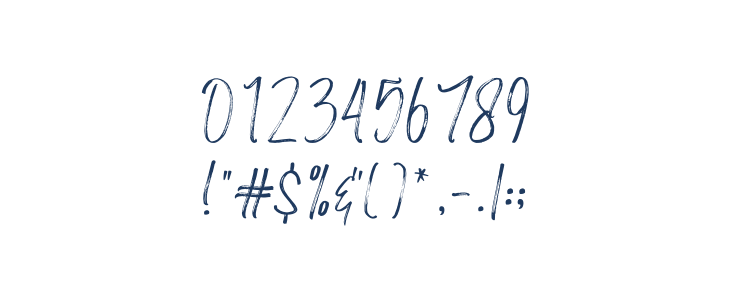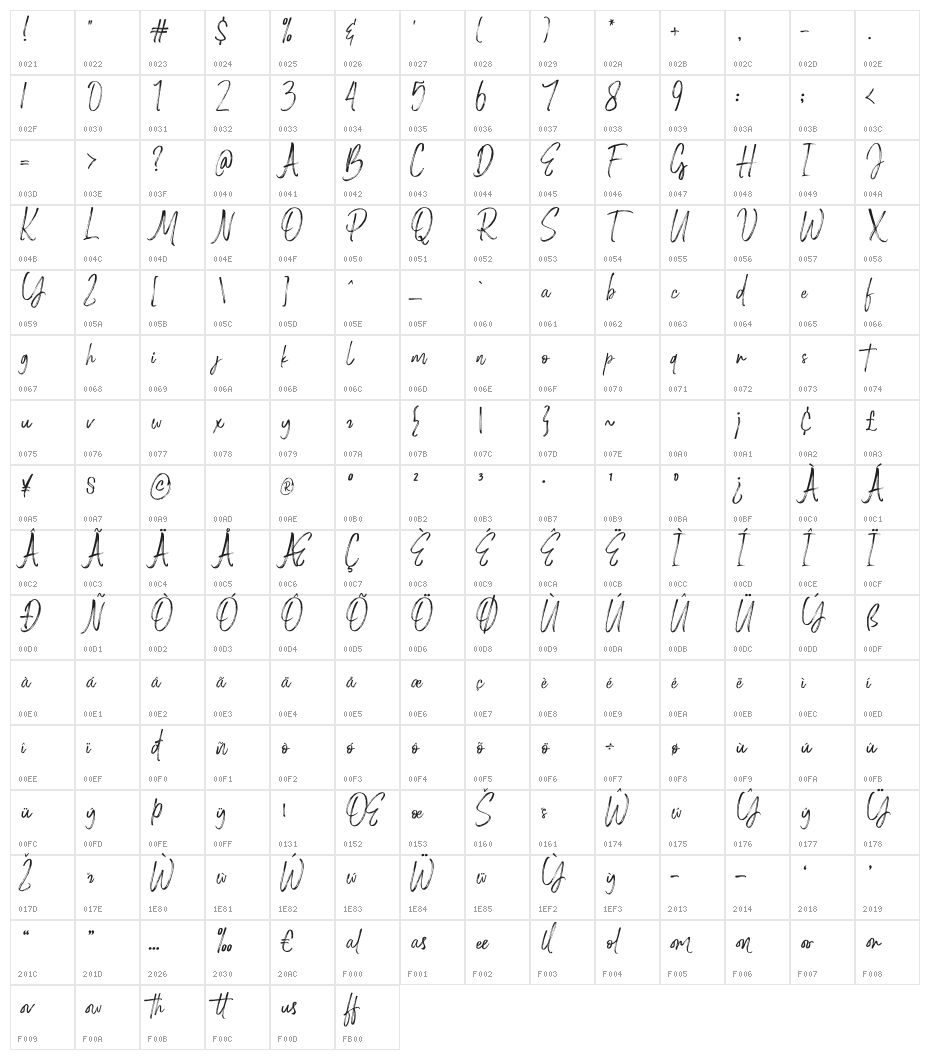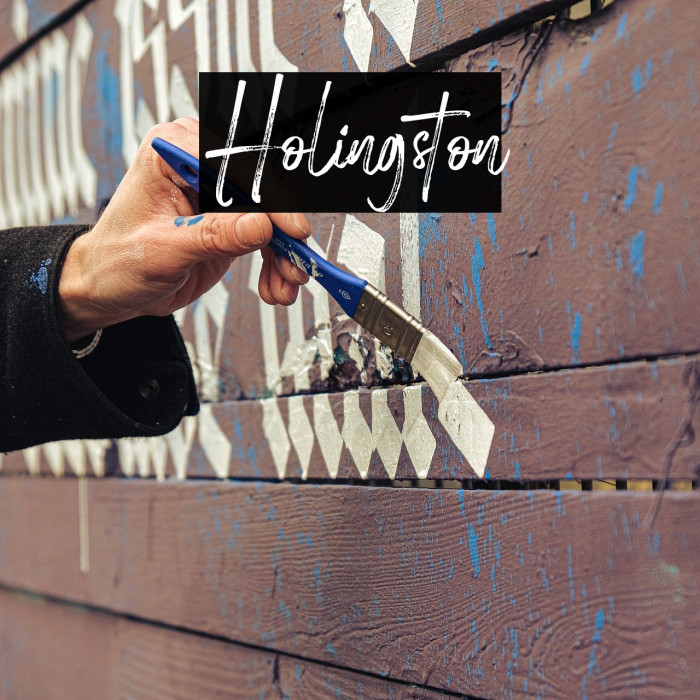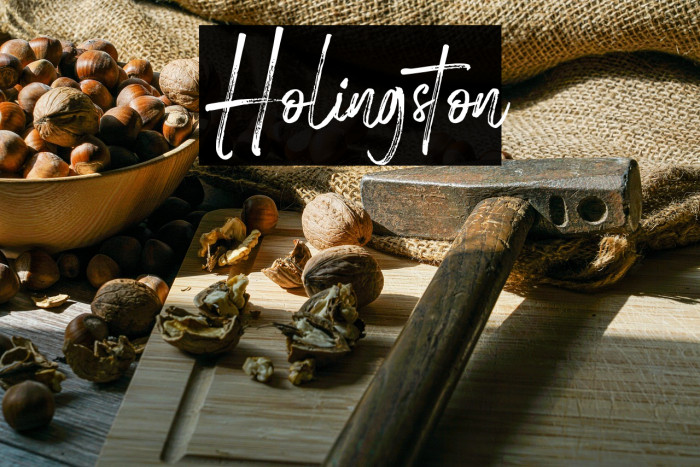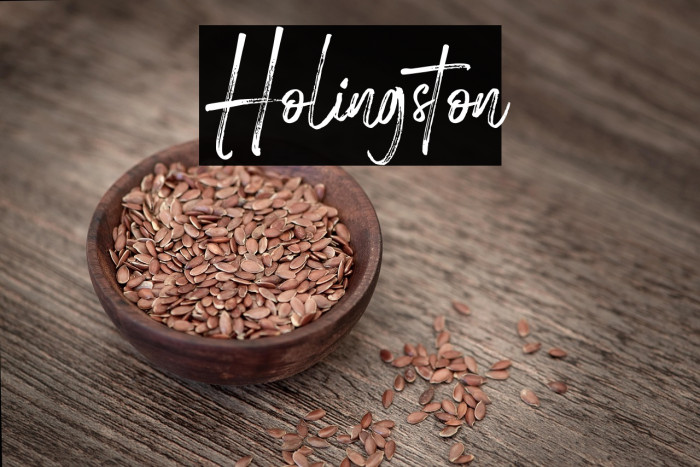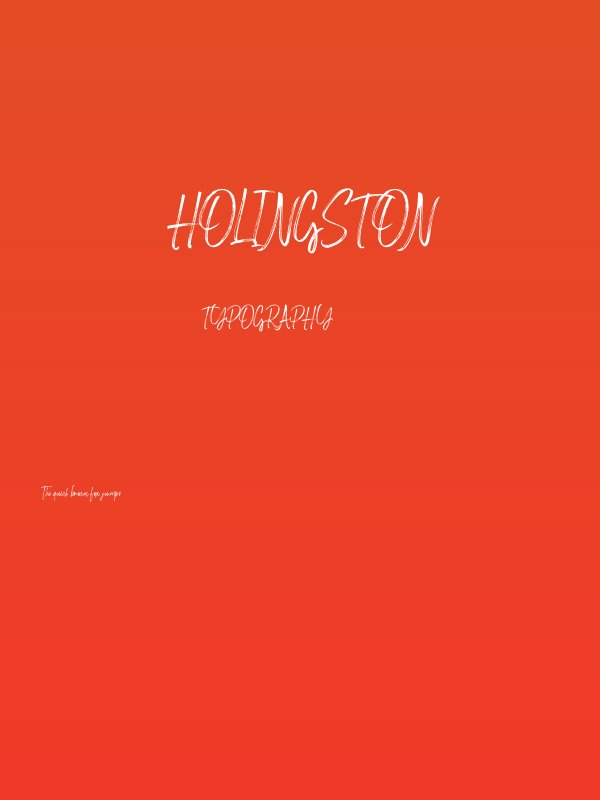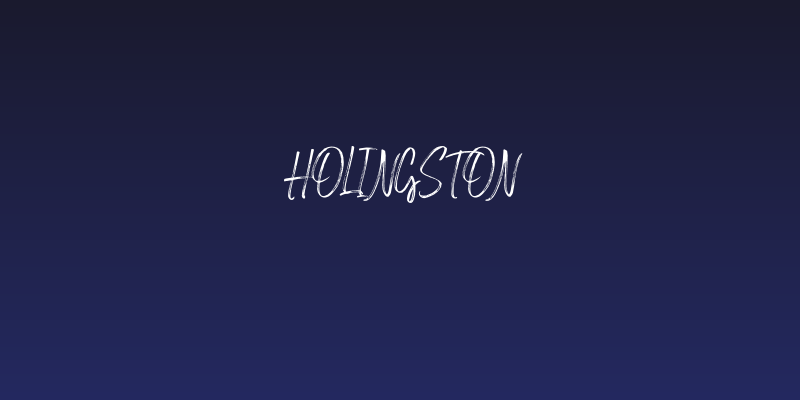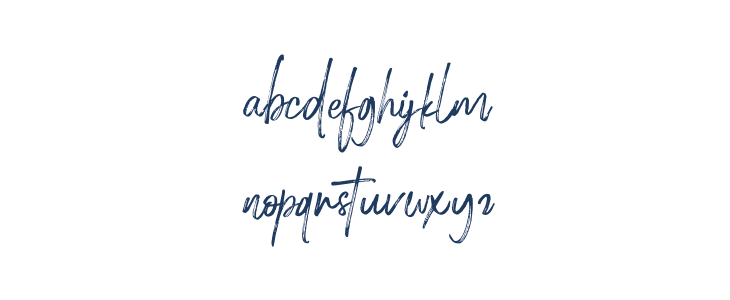
Holingston Font
Holingston Description
This font features a dynamic and expressive handwritten style, characterized by its fluid and organic strokes. The letters are slightly slanted, giving it a casual yet elegant appearance. The uppercase letters are bold and prominent, while the lowercase letters maintain a consistent flow, enhancing readability. The numbers and special characters are crafted with the same artistic flair, ensuring a cohesive look across all text elements. This font's unique brush-like texture adds a personal touch, making it ideal for projects that require a humanistic and approachable feel.
| Proposed Projects | Ideal for wedding invitations, greeting cards, personal branding, and social media graphics. |